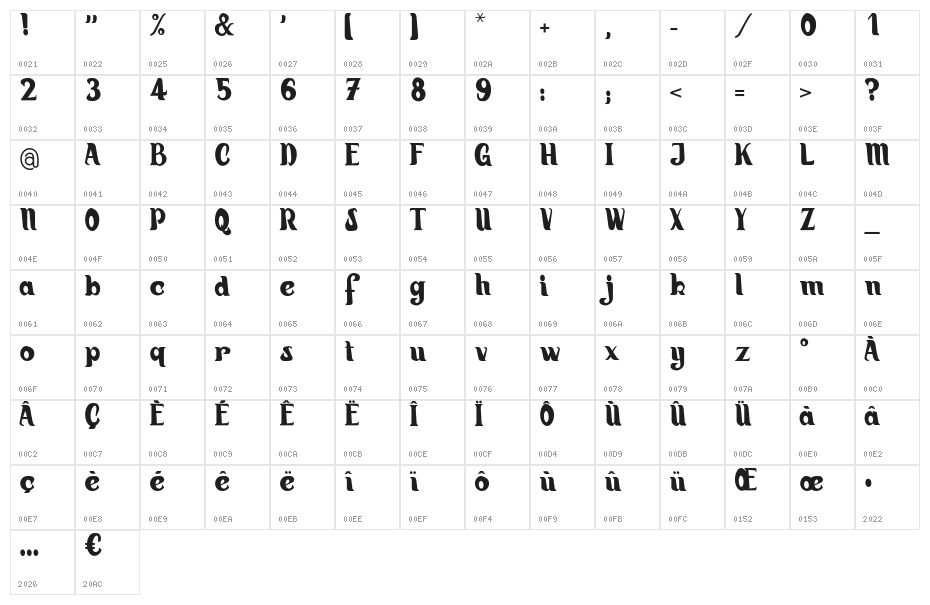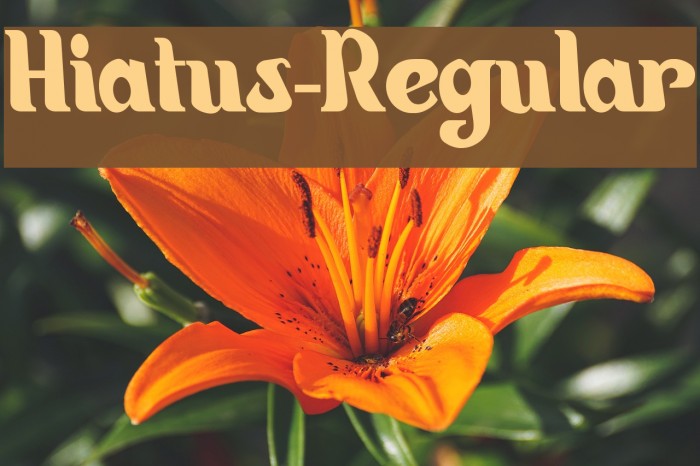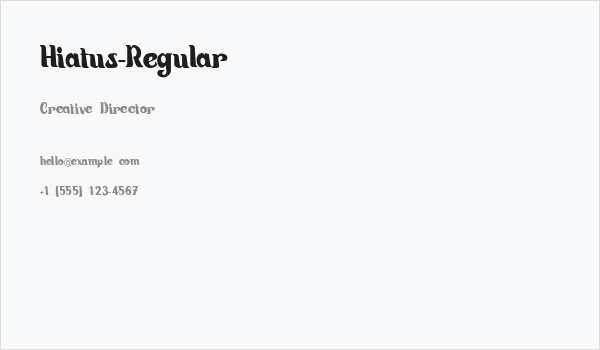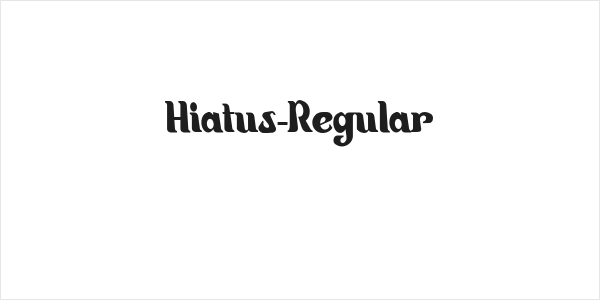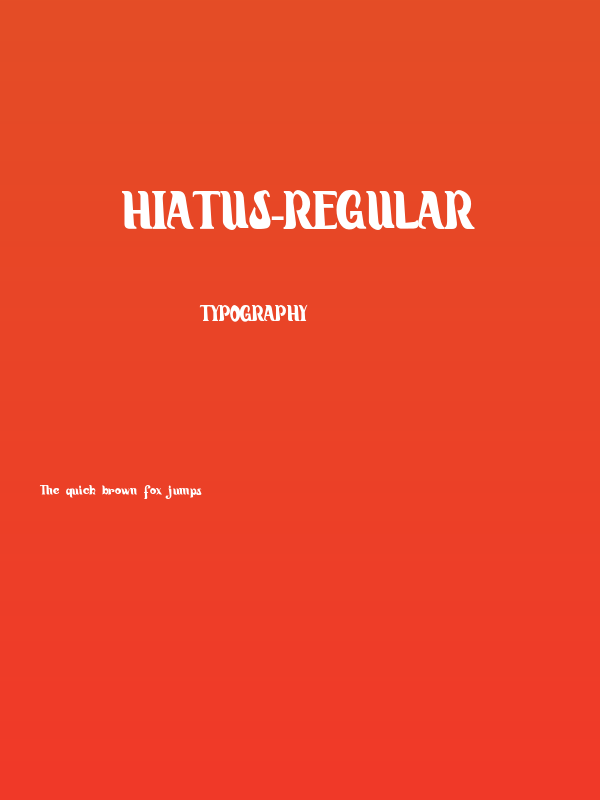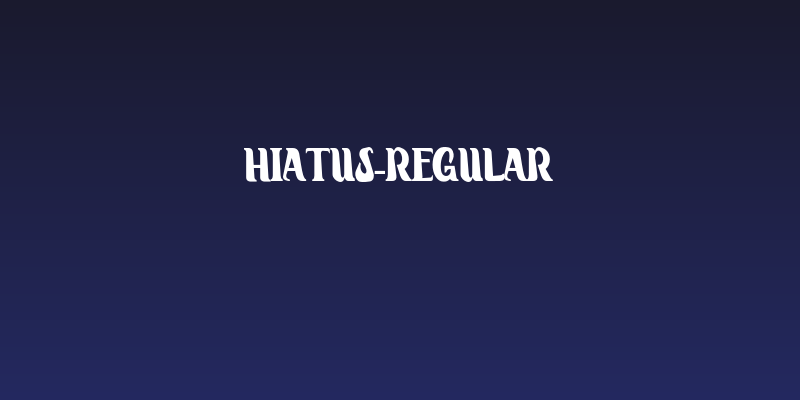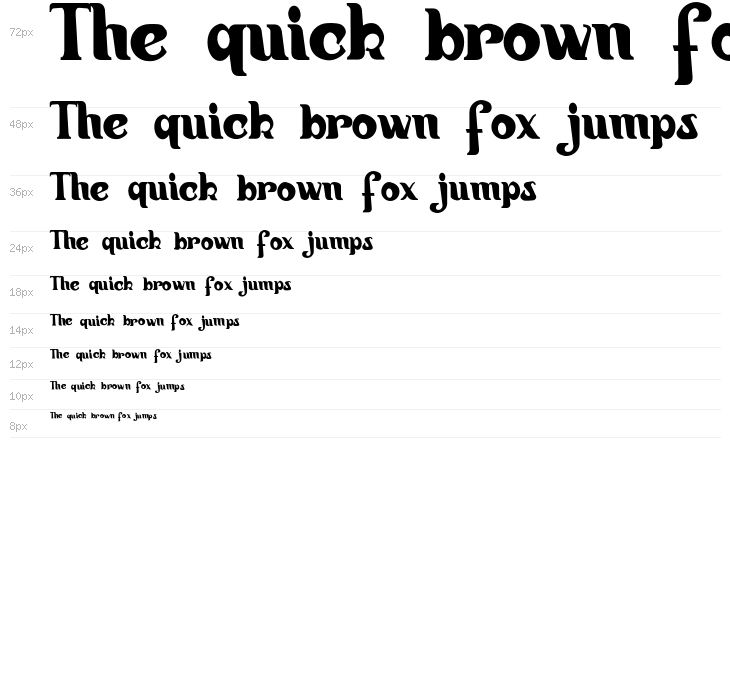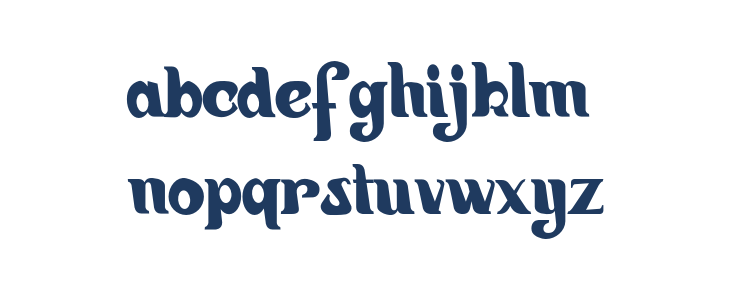
Hiatus-Regular Font
Hiatus-Regular Description
This font features a bold and playful style with a unique blend of curves and sharp edges. The uppercase letters are tall and slightly condensed, giving a strong presence, while the lowercase letters maintain a consistent weight with a whimsical flair. The numerals are robust and align well with the overall design, ensuring readability. Special characters are creatively crafted, adding to the font's distinctive personality. The font's boldness and artistic elements make it suitable for eye-catching designs.
| Proposed Projects | Ideal for posters, branding, and creative projects that require a strong visual impact. |